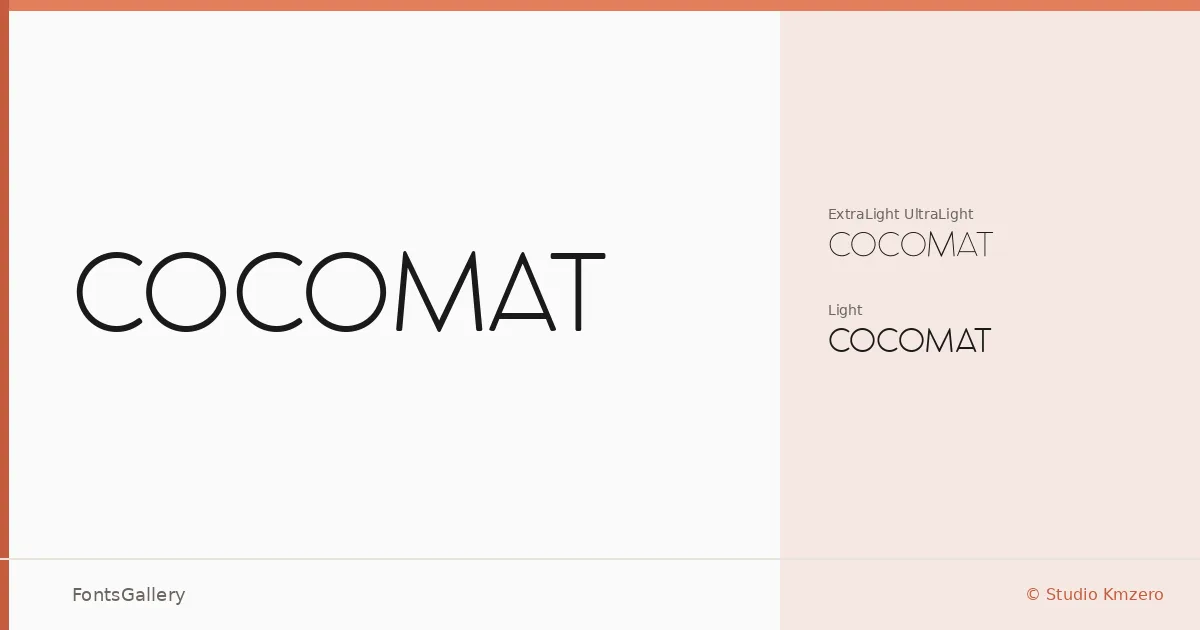
There is a particular restraint to these letterforms — the kind that comes from a designer who knows exactly when to stop. Cosimo Lorenzo Pancini of Studio Kmzero drew this geometric sans with a clarity that sits somewhere between editorial cool and luxury minimalism. The strokes are clean without being cold, and the spacing carries a deliberate openness that reads as confidence rather than emptiness.
The family arrives in two cuts — UltraLight and Light — and both sit at the quieter, more refined end of the weight spectrum, which is precisely where their elegance lives. The forms are modern and minimal, built for moments where the type itself needs to feel like part of a considered design system rather than decoration. Delivered as TTF files, the character set extends across Latin, Cyrillic, and Greek, giving the family genuine range for multilingual work.
The lightweight register makes it a natural choice for branding, logo treatments, magazine layouts, website headers, and business cards — anywhere that a lean, luxury tone is the brief. The two cuts pair well with faces that can hold their own against that restraint: Canela brings warmth through its serif curves, Allura offers a calligraphic contrast, ABC Arizona provides another editorial angle, and Ballmain or 321 Impact can introduce the weight that these delicate cuts intentionally leave out.